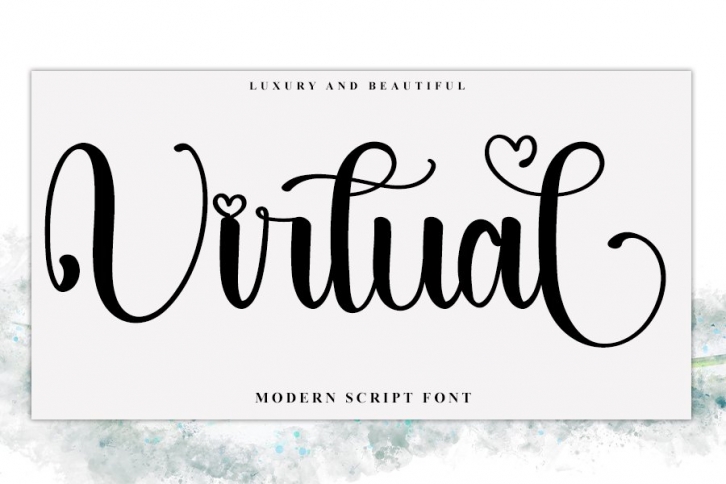
Virtual is a trendy and unique font with an authentic style. It was designed by InermediaSTUDIO and it's a great choice for creative people who need such a font. It was released on November 10, 2022 and the file size is 20.26 MB. Virtual will add an organic vibe to any design idea!